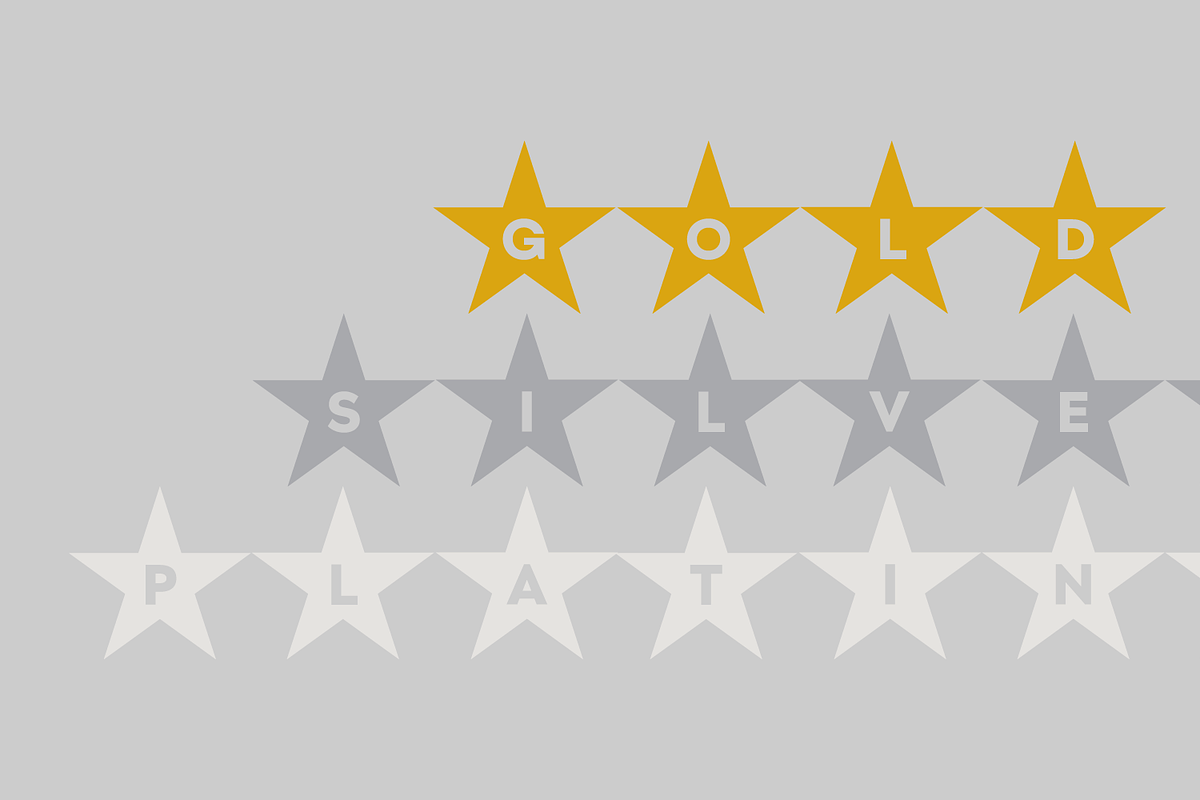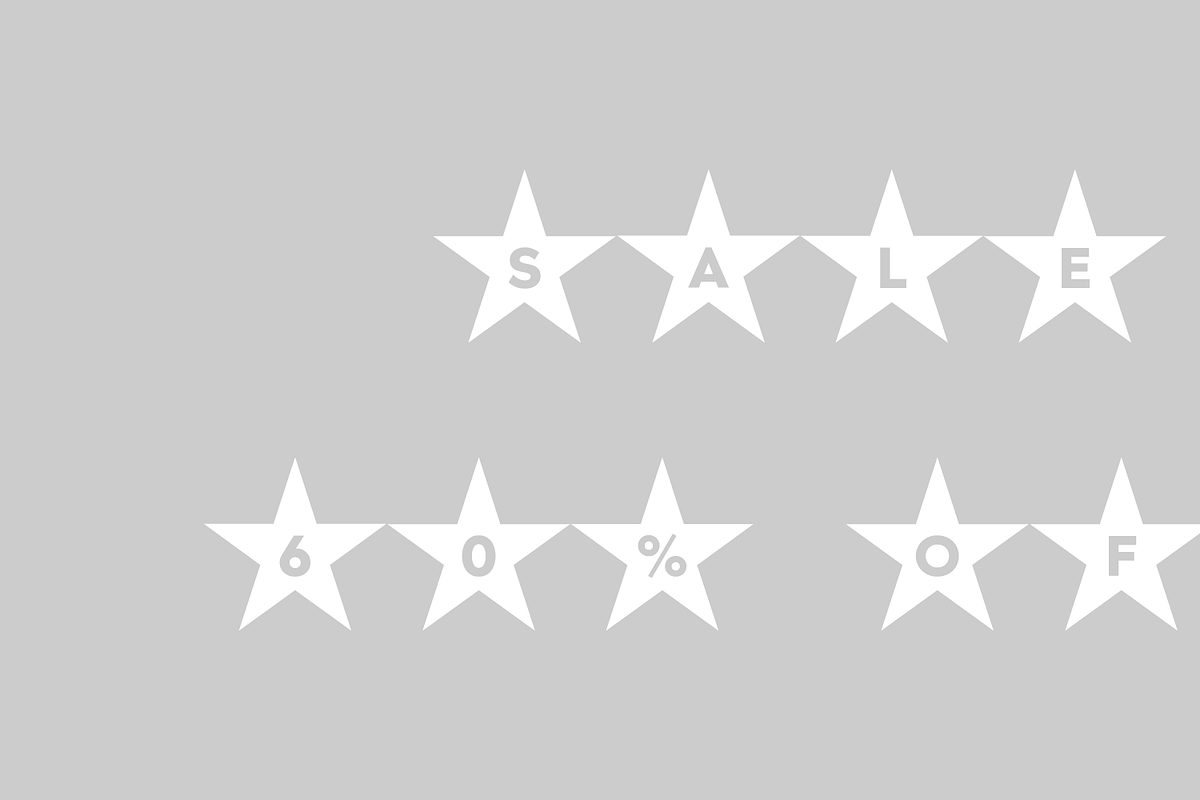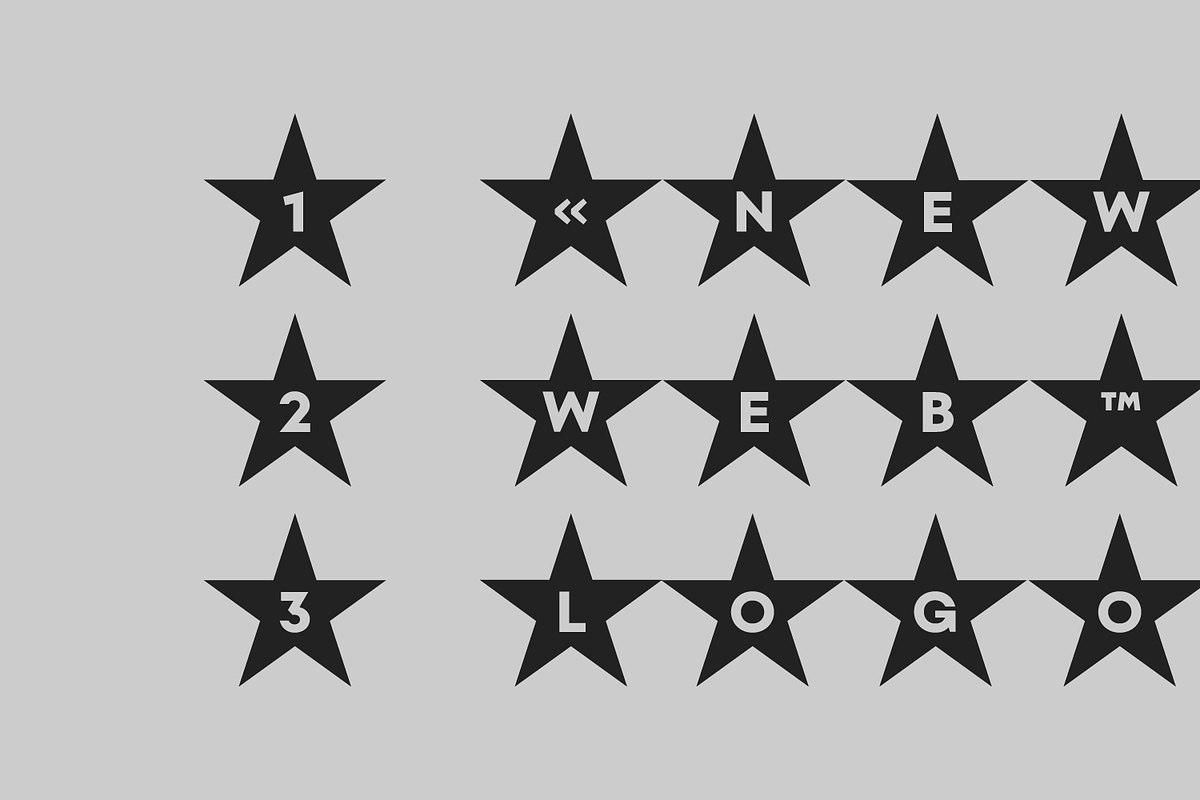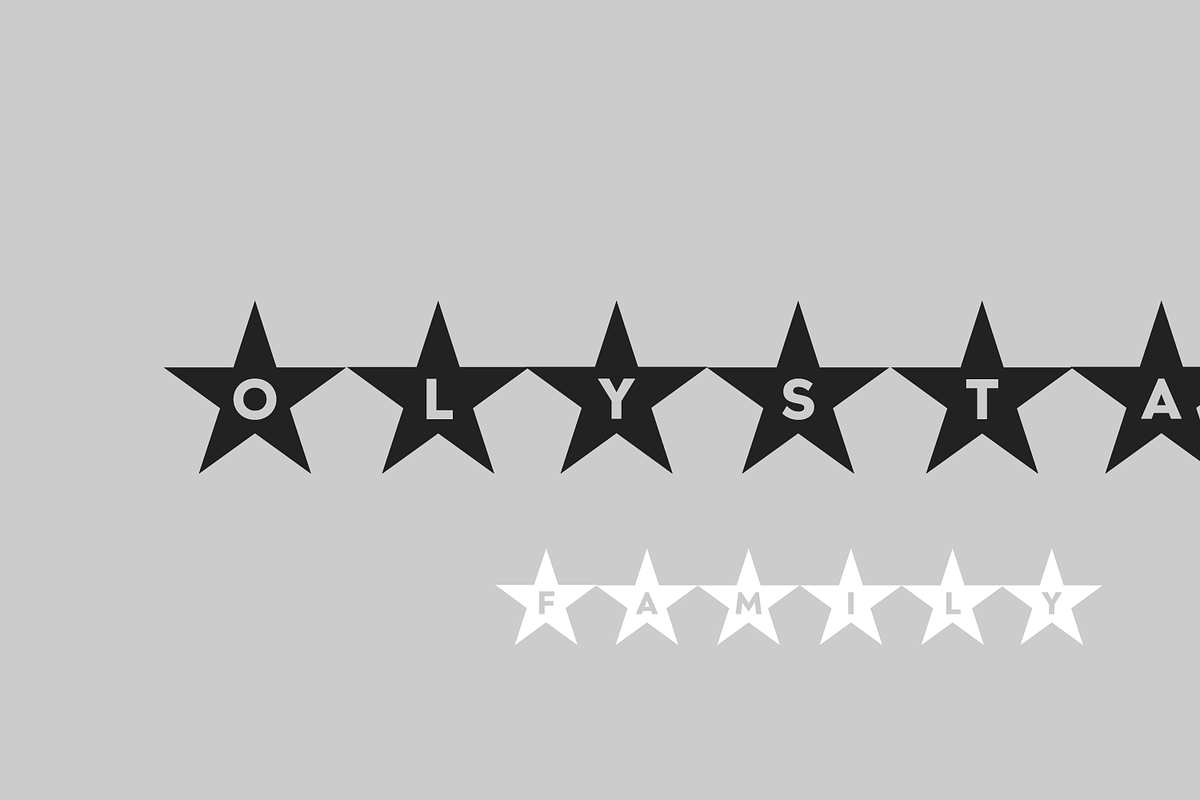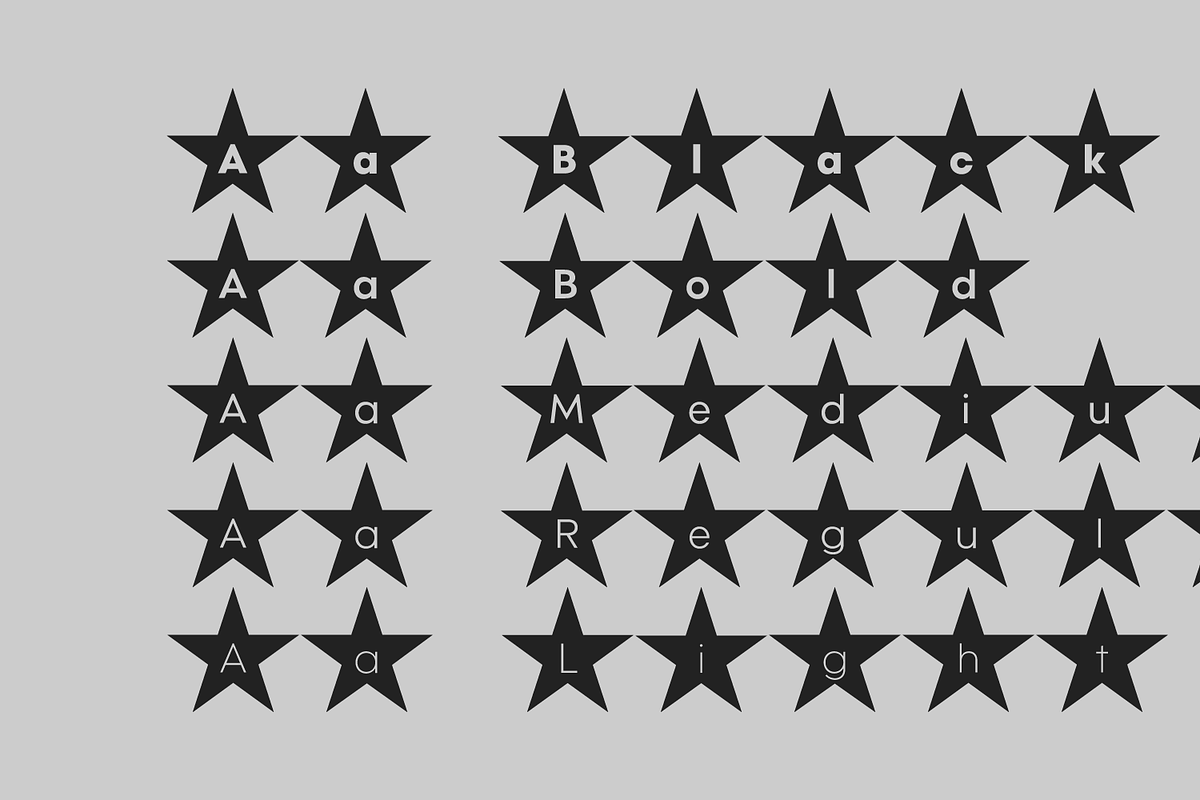
Olystar
Unleash the power of modern typography with Olystar, a captivating font family meticulously crafted on the foundation of the beloved Olyford font. Olystar boasts 5 exquisite weights and more than 400 glyphs in each style. This family is perfect for logotypes, advertising, packaging, corporate identities, and more.